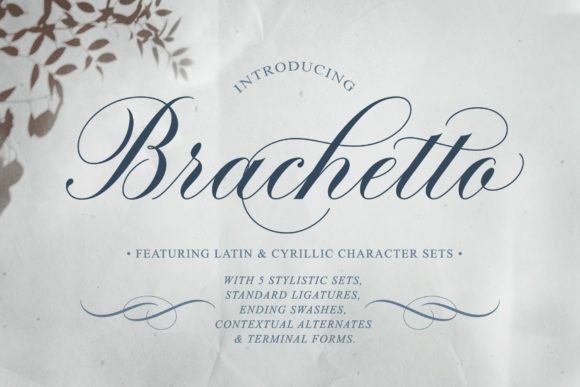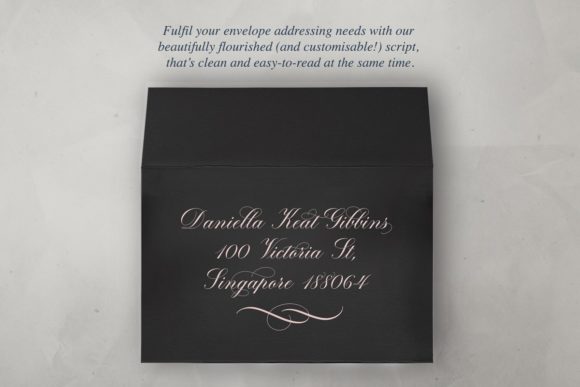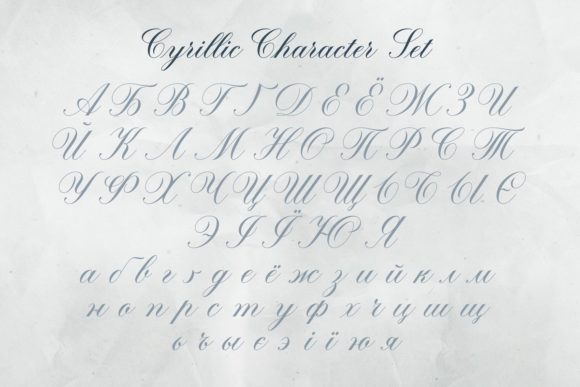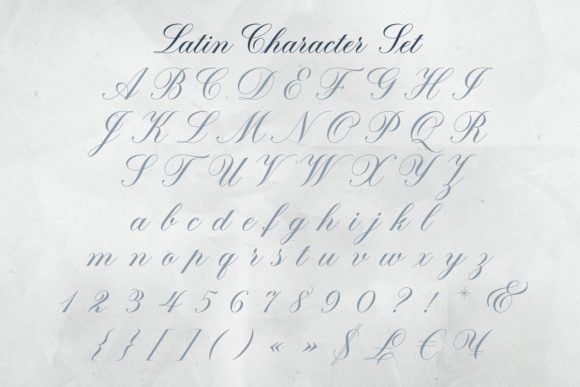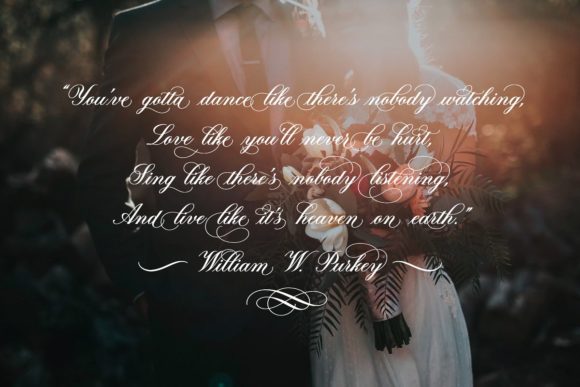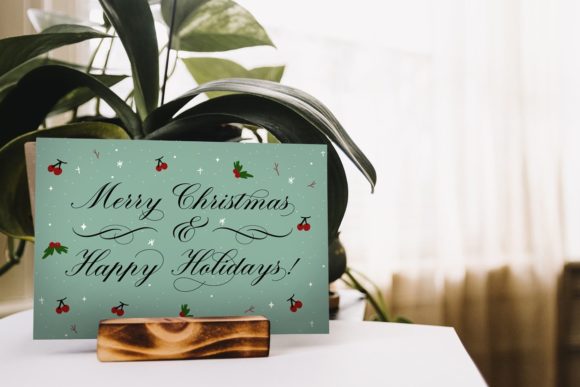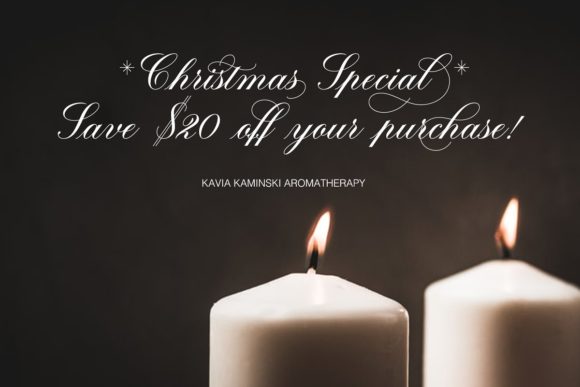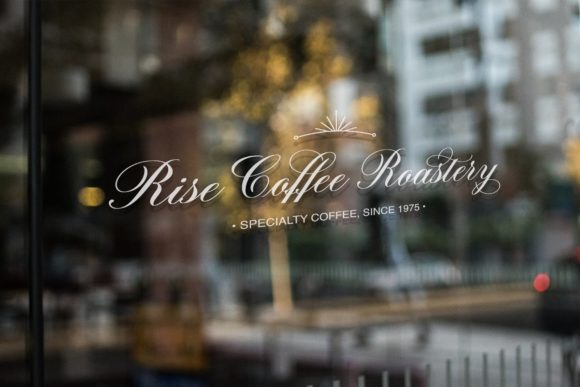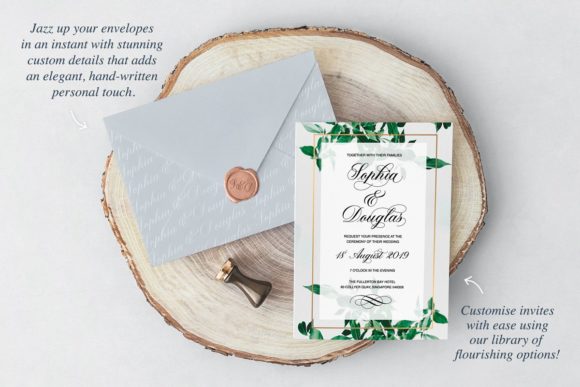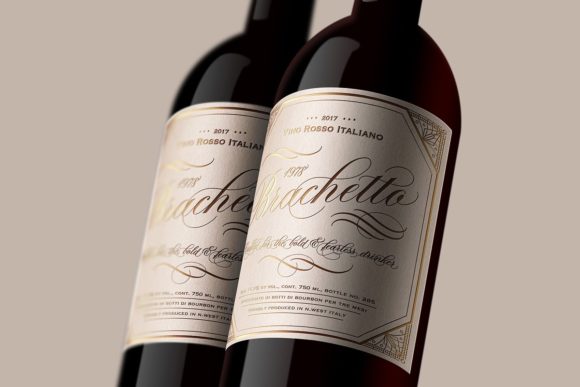
Brachetto Font
About Brachetto Font
Brachetto updates classic calligraphy with a sensual, modern twist. Ignite your creativity with this gorgeous and magical script!